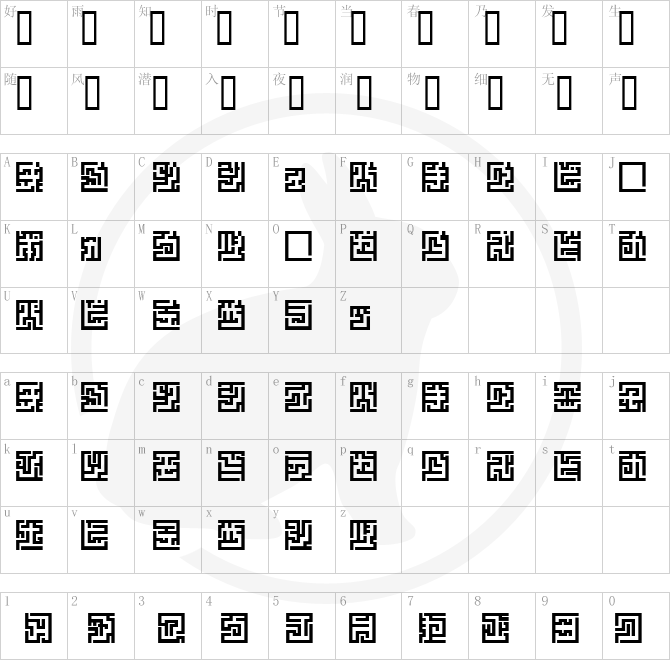
- Font Name:Z_tUBBAnomal
Z_tUBBAnomal.ttf is a very beautiful artistic font, Z_tUBBAnomal.ttf is widely used in the design and printing of various books and pictures,Z_tUBBAnomal.ttf has a strong visual impact,Z_tUBBAnomal.ttf is a commonly used font in newspapers, magazines and books, and is used in posters, e-commerce Poster design, store design, logo design, font design and other fields.Z_tUBBAnomal.